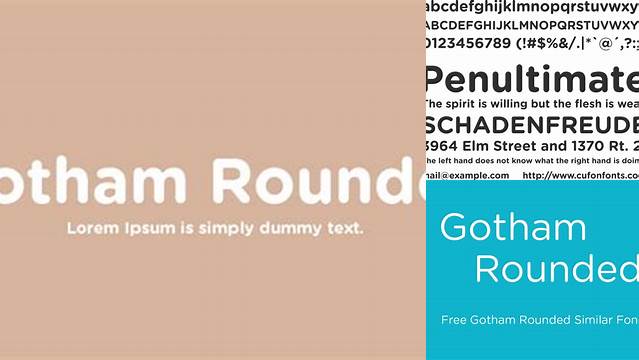
Gotham Rounded: Free Font Family & Alternatives Guide
Hey guys! Are you on the hunt for a font that's both modern and approachable? Look no further! Let's dive into the world of Gotham Rounded, a fantastic free font family that has captured the hearts of designers and typographers alike. This article will explore everything you need to know about Gotham Rounded, from its origins and design characteristics to its versatility and where you can get your hands on it. So, buckle up and let's get started!
What Makes Gotham Rounded So Special?
Gotham Rounded, with its clean lines and friendly curves, has carved a niche for itself in the design world. Originating from the renowned Gotham typeface, Gotham Rounded takes on a softer, more approachable personality while retaining the original's clarity and legibility. This unique blend makes it a perfect choice for a wide range of applications, from branding and advertising to web design and editorial layouts. The distinctive rounded terminals give it a warm and inviting feel, setting it apart from more formal and rigid sans-serif fonts. Its geometric structure ensures excellent readability, even at smaller sizes, making it a versatile option for both headlines and body text. Think of it as the cool, approachable cousin of the classic Gotham – just as stylish, but with an extra dose of friendliness. The font's widespread adoption speaks volumes about its effectiveness and aesthetic appeal. Major brands and organizations have embraced Gotham Rounded for their visual identities, further solidifying its status as a modern classic. Its adaptability and clean design make it a staple in many designers' toolkits. The subtle curves soften the hard edges typically associated with geometric sans-serifs, making it a more inviting option for a variety of applications. Gotham Rounded is also incredibly versatile in its weights, offering a range from thin to black, allowing for nuanced typographic hierarchies. This comprehensive range of weights ensures that you can maintain a consistent visual language across different design elements. It’s not just about looking good; it’s about communicating effectively, and Gotham Rounded excels at this. The rounded terminals give a sense of softness and approachability, making it ideal for brands that want to project a friendly image. The font's versatility also extends to digital platforms, where its clean lines and excellent readability make it a top choice for websites and apps. Gotham Rounded shines in user interfaces, where clarity and legibility are paramount. The carefully crafted letterforms ensure that text remains readable even on smaller screens, which is crucial for a positive user experience. Overall, Gotham Rounded's unique blend of modernity, approachability, and versatility makes it a standout choice in the world of typography. Whether you're designing a website, creating a brand identity, or crafting a marketing campaign, Gotham Rounded is a font family that deserves a place in your design arsenal.
Key Design Characteristics of Gotham Rounded
When you look at Gotham Rounded, several key design characteristics jump out, contributing to its overall appeal and versatility. First and foremost are the rounded terminals, the signature feature that gives the font its name and its softer, friendlier personality. These rounded ends replace the sharp, abrupt cuts found in many sans-serif fonts, creating a more inviting and approachable feel. This subtle change has a significant impact on the overall tone of the typeface, making it less formal and more human. The geometric construction is another critical aspect of Gotham Rounded's design. The font is built on simple geometric shapes, giving it a clean, modern, and highly legible appearance. This geometric foundation ensures that the letterforms are consistent and balanced, contributing to the font's overall harmony and readability. Despite its geometric roots, Gotham Rounded doesn't feel cold or sterile. The rounded terminals soften the geometric shapes, creating a perfect balance between modernity and warmth. The proportions of the letterforms in Gotham Rounded are carefully considered, ensuring optimal readability and visual appeal. The x-height, which refers to the height of the lowercase letters, is generous, making the text easy to read even at smaller sizes. The spacing between letters and words is also meticulously designed to enhance readability and create a pleasing visual rhythm. Another important characteristic of Gotham Rounded is its extensive range of weights and styles. The font family typically includes a variety of weights, from thin to black, allowing designers to create a clear typographic hierarchy within their designs. Each weight is carefully crafted to maintain the font's character and readability, ensuring consistency across the entire family. The availability of different styles, such as italics, further enhances the font's versatility, providing designers with even more options for expressing their creativity. Gotham Rounded's design also reflects a sense of neutrality and objectivity. It doesn't impose a strong personality of its own, making it a versatile choice for a wide range of applications. This neutrality allows the font to adapt to different design contexts and work effectively with various visual elements. Whether you're designing a corporate website, a marketing brochure, or a mobile app, Gotham Rounded can seamlessly integrate into your project and enhance your overall design. The font’s unique ability to balance modernity and approachability is what truly sets it apart. It's a typeface that feels both contemporary and timeless, making it a reliable choice for projects that require a clean, professional, and friendly aesthetic. In summary, Gotham Rounded's rounded terminals, geometric construction, well-balanced proportions, extensive range of weights and styles, and sense of neutrality all contribute to its unique appeal and versatility. These design characteristics make it a standout choice for designers looking to create impactful and effective visual communications.
Versatility in Action: Where to Use Gotham Rounded
Gotham Rounded's versatility shines through its diverse applications across various design disciplines. It's a true workhorse font, equally at home in branding projects, web design, editorial layouts, and advertising campaigns. This adaptability stems from its clean, legible design and the friendly, approachable vibe it exudes. In the realm of branding, Gotham Rounded is a stellar choice for companies seeking a modern and trustworthy image. Its clean lines and soft curves convey professionalism and approachability, making it ideal for logos, brand guidelines, and marketing materials. Companies in tech, healthcare, and finance often gravitate towards Gotham Rounded for its balance of sophistication and friendliness. Its neutral yet inviting character ensures that the brand message is communicated clearly and effectively. For web design, Gotham Rounded is a dream to work with. Its excellent readability, even on smaller screens, makes it perfect for body text, headlines, and navigation menus. The font's geometric construction ensures that it renders sharply on digital displays, providing a seamless user experience. Many websites and apps use Gotham Rounded to create a clean, modern, and user-friendly interface. Its versatility allows it to adapt to various website styles, from minimalist designs to more complex layouts. Editorial design also benefits greatly from Gotham Rounded's unique qualities. Its clear and legible letterforms make it an excellent choice for body text in magazines, newspapers, and books. The font's range of weights and styles allows for a clear typographic hierarchy, making it easy for readers to navigate the content. Gotham Rounded’s clean appearance ensures that the focus remains on the text, enhancing the reading experience. In advertising and marketing, Gotham Rounded’s approachable nature makes it a powerful tool. It can be used effectively in both print and digital ads, conveying a sense of trust and reliability. The font’s ability to catch the eye without being overly assertive makes it ideal for headlines, taglines, and calls to action. Its modern aesthetic ensures that marketing materials feel current and relevant. Beyond these core applications, Gotham Rounded also finds its place in environmental graphics, signage, and wayfinding systems. Its clear and legible letterforms make it easy to read from a distance, making it an excellent choice for signage in public spaces. Its modern aesthetic complements contemporary architectural styles, ensuring a cohesive visual experience. The font’s versatility also extends to user interface (UI) design, where clarity and legibility are paramount. Gotham Rounded's clean lines and balanced proportions make it an excellent choice for buttons, labels, and other UI elements. Its ability to maintain readability even at smaller sizes is crucial for creating user-friendly interfaces. In summary, Gotham Rounded’s versatility makes it a valuable asset for any designer. Its ability to adapt to various design contexts and effectively communicate different brand personalities is a testament to its thoughtful design and timeless appeal. Whether you're working on a branding project, a website, an editorial layout, or an advertising campaign, Gotham Rounded is a font that you can rely on to deliver exceptional results. So guys, keep this font in mind for your next project!
Final Thoughts: Why Gotham Rounded Remains a Design Favorite
To wrap things up, Gotham Rounded remains a firm favorite among designers for good reason. Its unique blend of modernity, approachability, and versatility makes it an invaluable asset in any designer's toolkit. From branding to web design, editorial layouts to advertising campaigns, Gotham Rounded consistently delivers a clean, contemporary aesthetic that resonates with audiences. The font's rounded terminals soften the geometric forms, creating a friendly and inviting feel, while its clean lines and balanced proportions ensure excellent readability. This combination of visual appeal and functionality is what sets Gotham Rounded apart. Its widespread adoption by major brands and organizations is a testament to its effectiveness and timeless quality. Gotham Rounded's ability to communicate a sense of trust and reliability makes it an excellent choice for businesses seeking to establish a strong brand identity. Whether used in logos, marketing materials, or website interfaces, Gotham Rounded helps create a cohesive and professional brand image. In the digital realm, Gotham Rounded's legibility on screens is a major advantage. Its clean letterforms render sharply on various devices, ensuring a seamless user experience. This makes it an ideal choice for websites, apps, and other digital interfaces where readability is paramount. The font's versatility extends to different design styles, seamlessly integrating into minimalist layouts as well as more complex designs. Gotham Rounded's range of weights and styles allows designers to create a clear typographic hierarchy, guiding the reader's eye and enhancing the overall visual communication. This flexibility makes it easy to create designs that are both visually appealing and highly functional. While the original Gotham Rounded is a premium font, the availability of excellent free alternatives ensures that its aesthetic is accessible to designers of all levels. Fonts like Montserrat, Nunito Sans, and Lato offer a similar modern and approachable feel, allowing you to achieve a similar look without the cost. These free alternatives are readily available on platforms like Google Fonts, making them easy to incorporate into your projects. In the ever-evolving world of design, some fonts come and go, but Gotham Rounded has proven its staying power. Its timeless design and versatility ensure that it remains a relevant and effective choice for years to come. Whether you're a seasoned designer or just starting out, Gotham Rounded is a font family that you should definitely have in your repertoire. Its ability to balance modernity, approachability, and functionality makes it a true design classic. So, there you have it, guys! Gotham Rounded – a font that continues to inspire and impress. Keep it in mind for your next project, and you won't be disappointed!